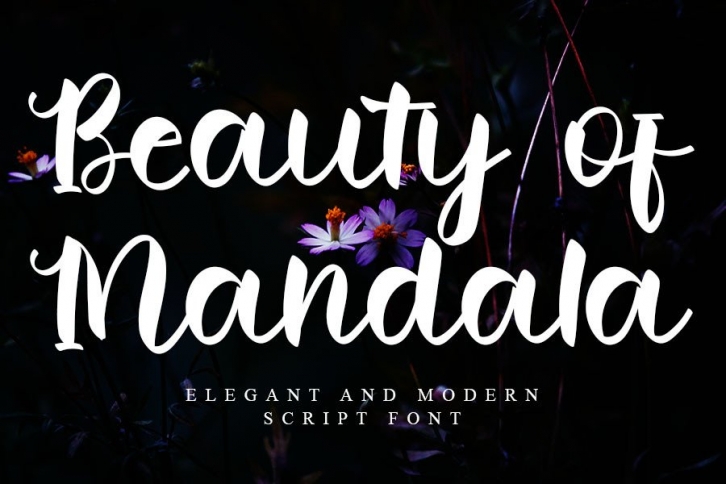
Beauty of Mandala is a sweet, whimsical and flowing script font. Featuring characters that dance along the baseline, this font will add a luxury spark to any design project that you wish to create!